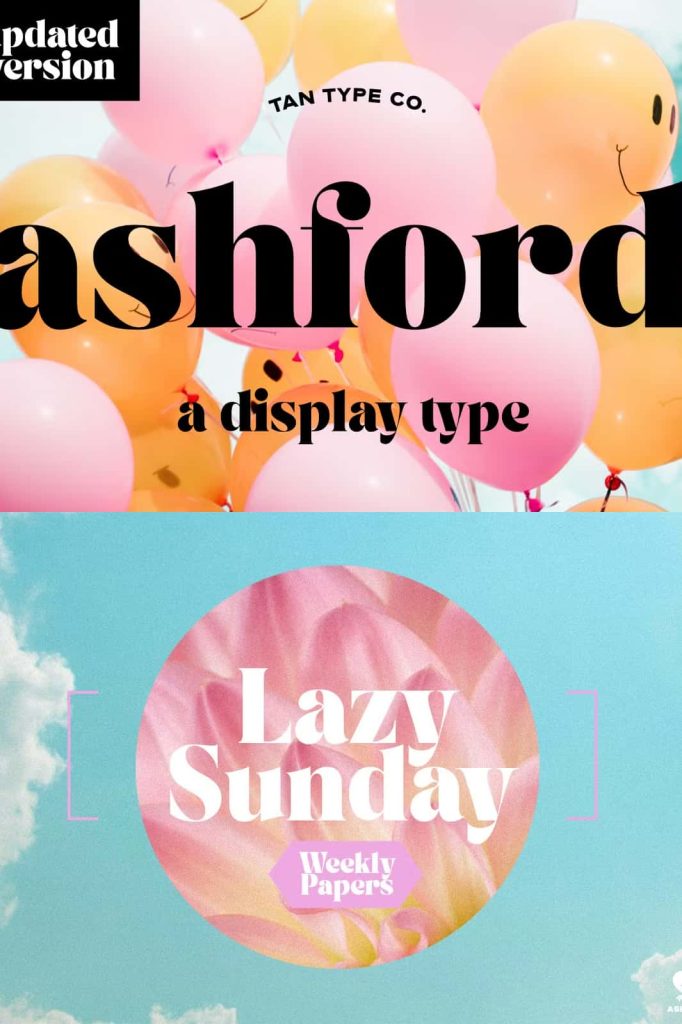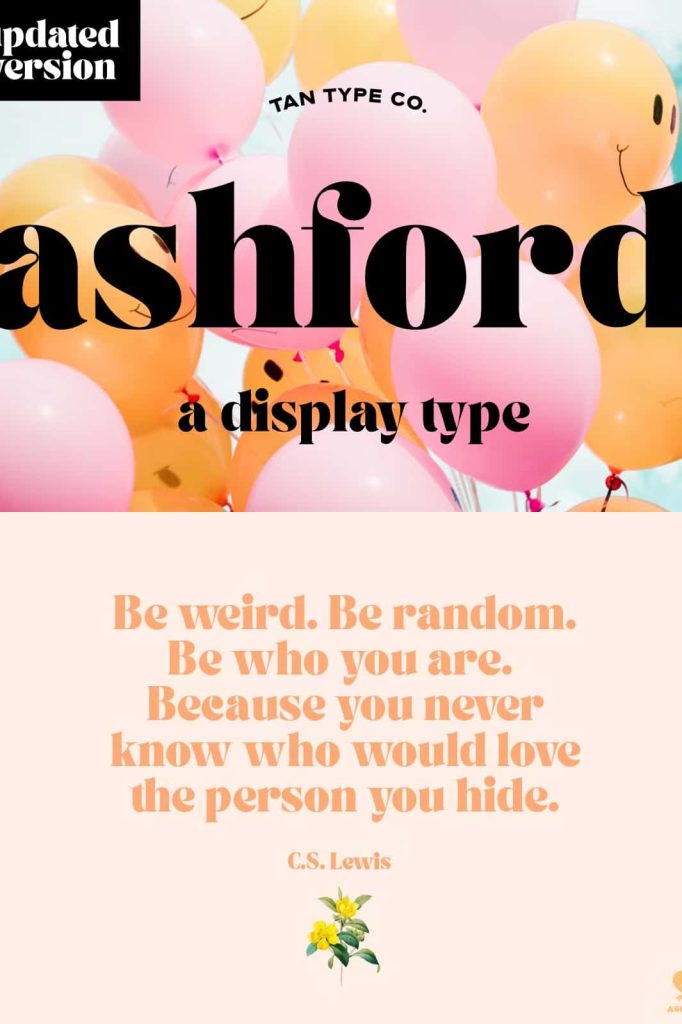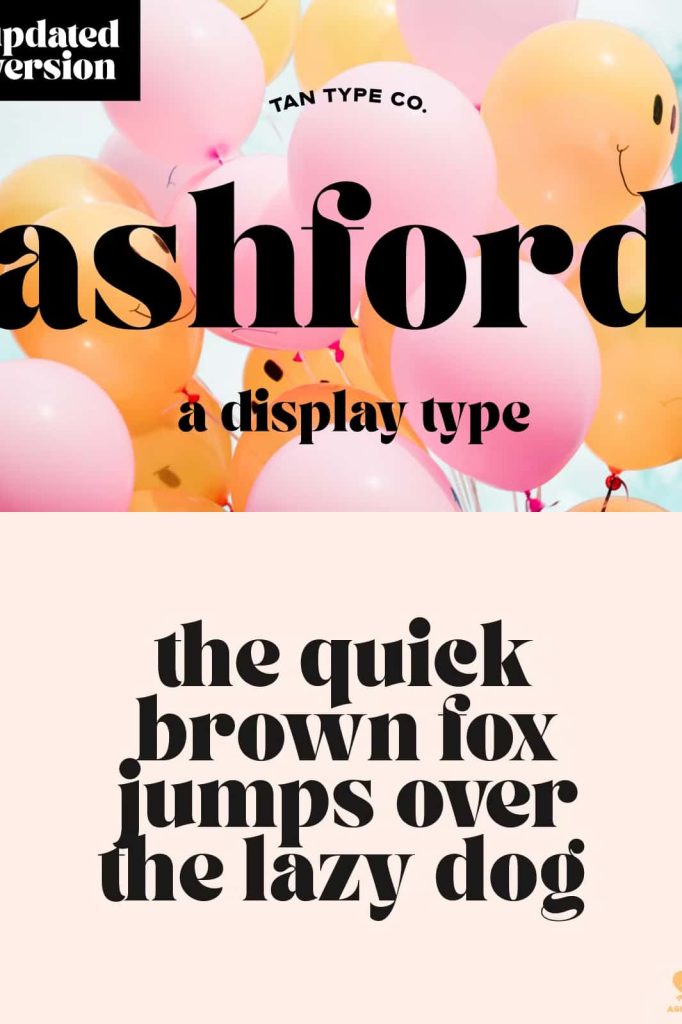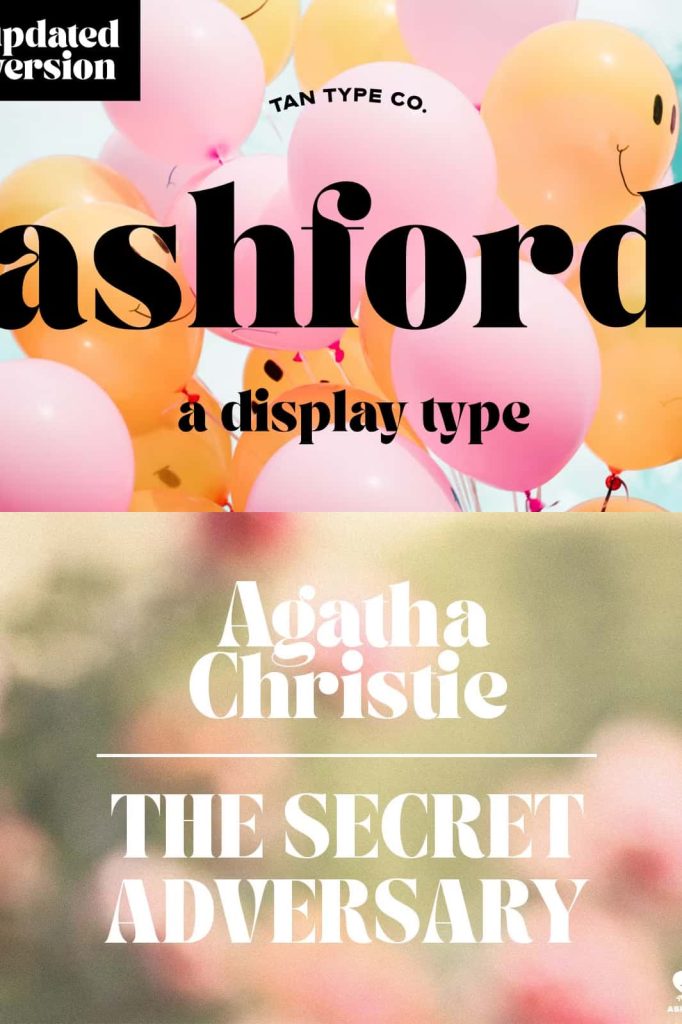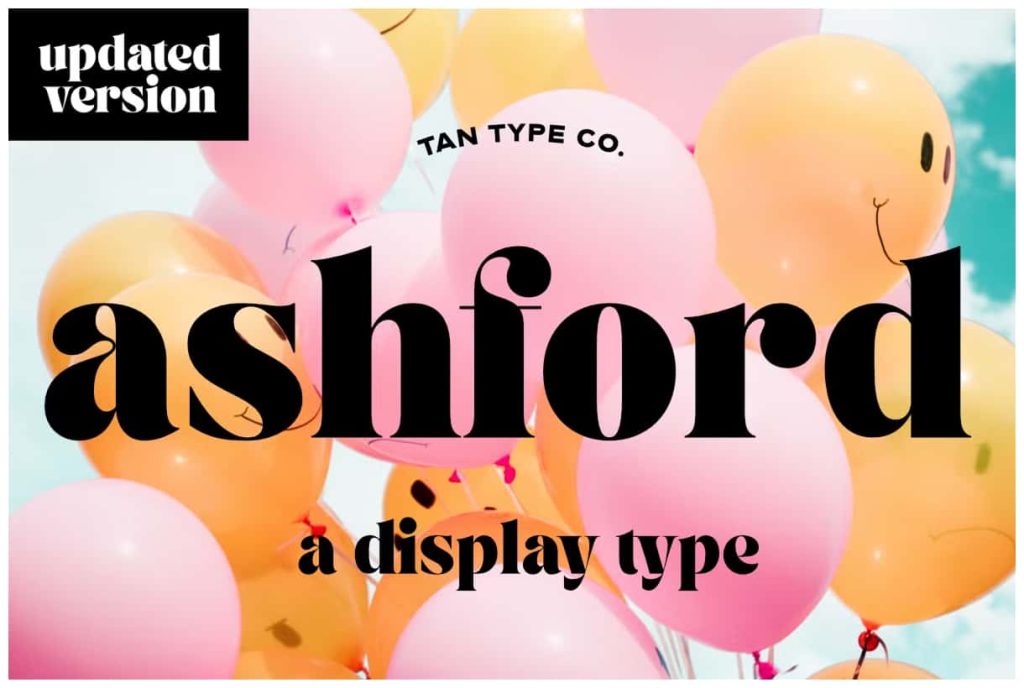
TAN Ashford Font – A Bold, Elegant Serif with Timeless Vintage Charm
TAN Ashford Font is a bold, high-contrast serif typeface designed to bring sophistication and impact to your creative projects. With its sharp edges, graceful curves, and subtle vintage influences, TAN Ashford offers the perfect balance between classic refinement and modern design. This typeface captures attention instantly, making it an ideal choice for bold headlines, elegant invitations, striking advertisements, and editorial layouts that require a touch of luxury and distinction.
Discover the Distinctive Character of TAN Ashford Font
TAN Ashford Font stands out through its high contrast between thick and thin strokes, giving it a dramatic yet refined visual appeal. Each letterform is crafted with precision to embody confidence, beauty, and style. The typeface carries a sense of authority while maintaining a graceful flow that enhances readability. Its combination of bold structure and delicate detailing makes it suitable for both contemporary and vintage-inspired designs.
This versatility allows designers to use TAN Ashford across different mediums—from luxury branding and fashion editorials to modern advertising and digital campaigns. Whether in print or on screen, it delivers a statement of strength, elegance, and timelessness.
Elegant Serif Design with Vintage Inspiration
The design of TAN Ashford Font draws inspiration from classic typography traditions while integrating modern sensibilities. Its bold, high-contrast strokes echo the craftsmanship of traditional typefaces used in vintage advertising and editorial titles, while its clean geometry ensures it remains relevant in modern contexts. The subtle vintage undertone gives every word an air of sophistication and nostalgia, making it a powerful tool for designers who want to merge the past with the present.
This harmonious combination of old-world charm and contemporary clarity allows TAN Ashford to adapt effortlessly to a wide range of design styles, from refined minimalism to dramatic vintage aesthetics.
Perfect for a Variety of Design Applications
TAN Ashford Font excels in both display and print settings, offering high readability and visual impact. It is best suited for designs that demand elegance, structure, and a bold visual statement. Because of its distinct personality, TAN Ashford easily elevates any creative project with a touch of class and confidence.
Use TAN Ashford Font for:
- Headlines and Editorial Titles: Create stunning headlines and magazine titles with commanding presence and elegance.
- Branding and Logo Design: Develop luxury brand identities that exude confidence and timeless style.
- Invitations and Stationery: Add refinement and sophistication to wedding invitations or special event materials.
- Advertising and Marketing Materials: Draw attention with high-impact visuals and bold typographic hierarchy.
- Product Packaging: Give premium packaging designs a strong and classy identity.
- Web and Digital Design: Ensure legibility and modern appeal in online banners, headers, and portfolios.
Why Designers Choose TAN Ashford Font
Designers love TAN Ashford Font for its versatility and timeless elegance. Its strong serif design with high contrast adds both luxury and professionalism to any project. The typeface communicates authority while maintaining a welcoming and refined aesthetic. This balance makes it particularly effective for high-end branding, editorial layouts, and promotional materials that aim to leave a lasting impression.
Its structure supports a clear typographic hierarchy, allowing designers to pair it effectively with simpler sans serif fonts for balance. The smooth contrast between thick and thin strokes makes TAN Ashford not just a decorative choice but a practical one for professional design projects.
Key Features of TAN Ashford Font
- Bold Serif Design: Perfect for creating strong and elegant typographic compositions.
- High Contrast Letterforms: Adds drama and sophistication to any visual design.
- Vintage Influence: Inspired by early serif styles, adding depth and timelessness.
- Versatile Applications: Works beautifully in print, web, and digital design settings.
- Refined Aesthetic: Combines modern minimalism with classic charm for a professional finish.
Bring Your Designs to Life with TAN Ashford Font
TAN Ashford Font empowers creatives to express sophistication and strength in every design. It’s the perfect choice for projects that require a confident yet refined touch. The typeface’s vintage undertones make it feel familiar and timeless, while its sharp contrast and precise form give it a modern, luxurious edge. Whether you’re crafting a bold magazine headline, developing a luxury brand, or designing elegant invitations, TAN Ashford delivers a professional and memorable result.
Conclusion: Elevate Your Visual Storytelling with TAN Ashford
TAN Ashford Font is more than just a serif typeface—it’s a design statement. Its bold lines, refined details, and vintage inspiration make it an essential tool for any designer looking to create sophisticated and timeless visuals. The combination of elegance and strength ensures that your text not only stands out but also communicates with clarity and confidence. With TAN Ashford, every project gains a touch of prestige and classic beauty.
Enhance your creative work with TAN Ashford Font—where bold sophistication meets timeless design.